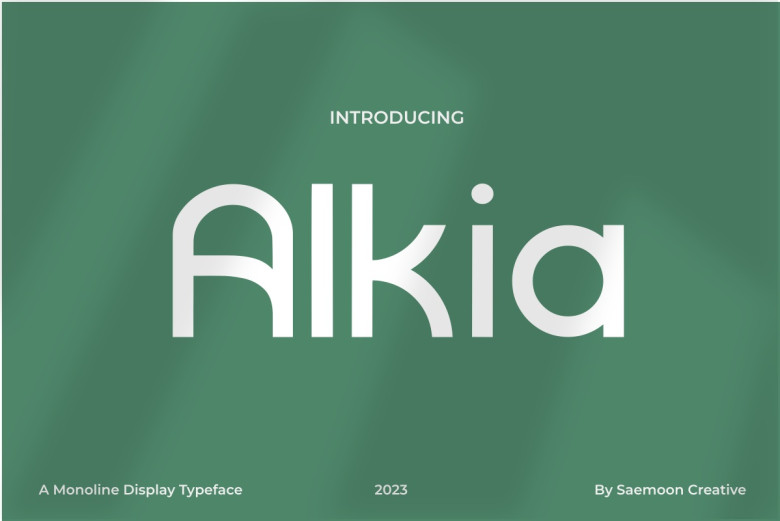
Alkia Font
Alkia font is a sophisticated sans-serif that exudes modern sophistication. Featuring clean lines and subtle curvatures that add elegance and clarity to any project, Vitras font is ideal for editorial content creation, branding, modern layouts, ensuring readability while still looking good visually.
Alkia Sans Serif Font